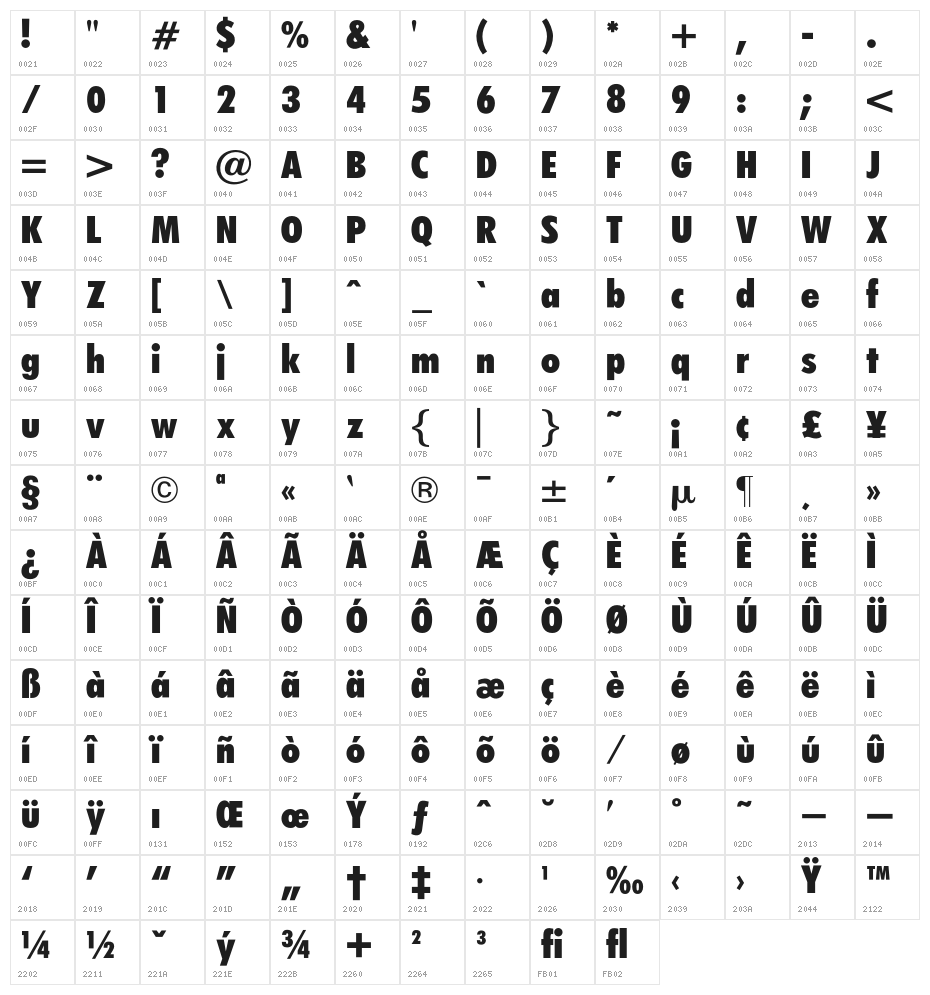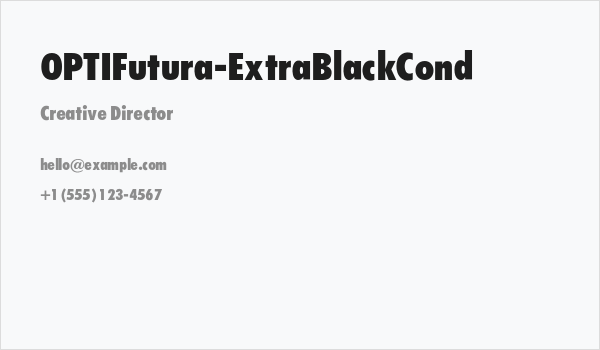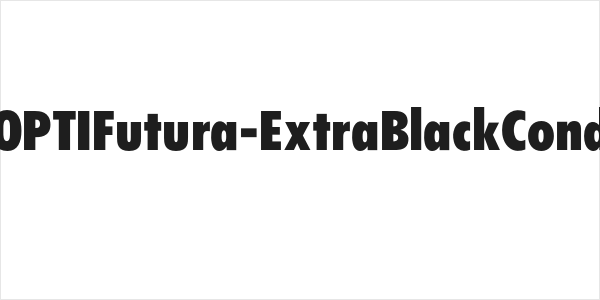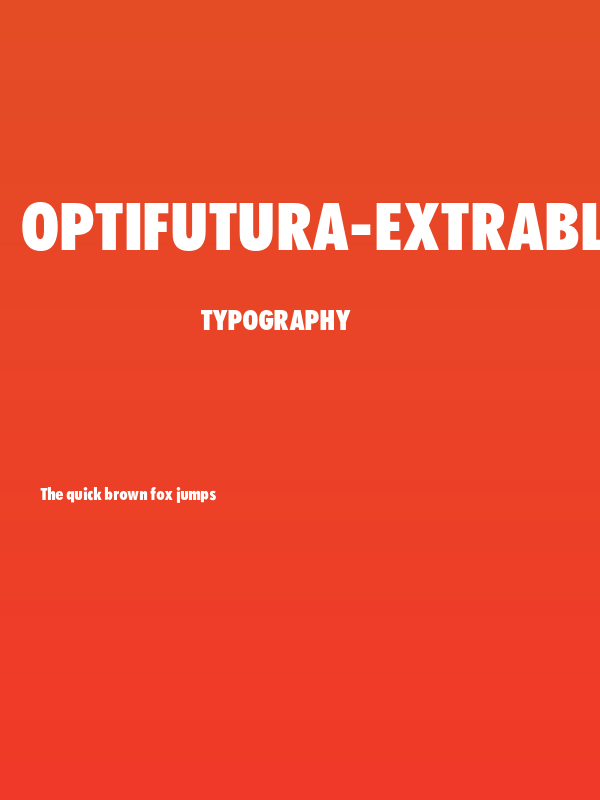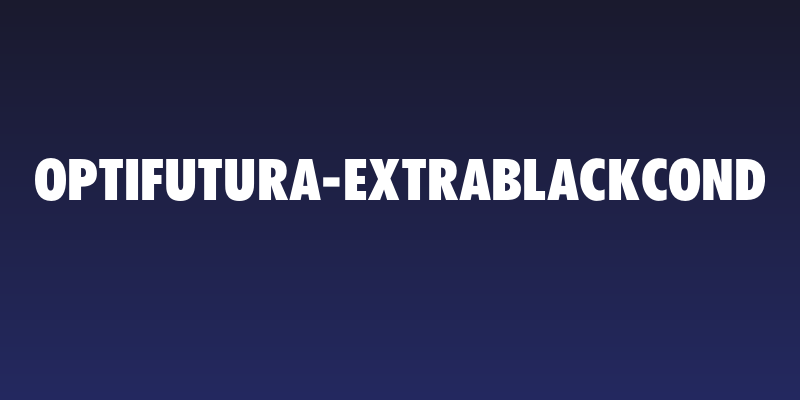
OPTIFutura-ExtraBlackCond Font
OPTIFutura-ExtraBlackCond Description
This typeface is characterized by its bold and impactful presence, featuring thick strokes and a strong geometric structure. The characters are uniformly wide, giving it a condensed appearance that maximizes space efficiency. Its clean lines and lack of serifs contribute to a modern and assertive look, making it ideal for attention-grabbing headlines and titles. The uppercase and lowercase letters maintain a consistent weight, ensuring readability and visual harmony. The numerals and special characters are designed to complement the alphabet, maintaining the same boldness and clarity.
| Proposed Projects | This font is perfect for branding projects, poster designs, and any application requiring a strong visual impact. It can be used effectively in advertising, packaging, and digital media where boldness is key. |